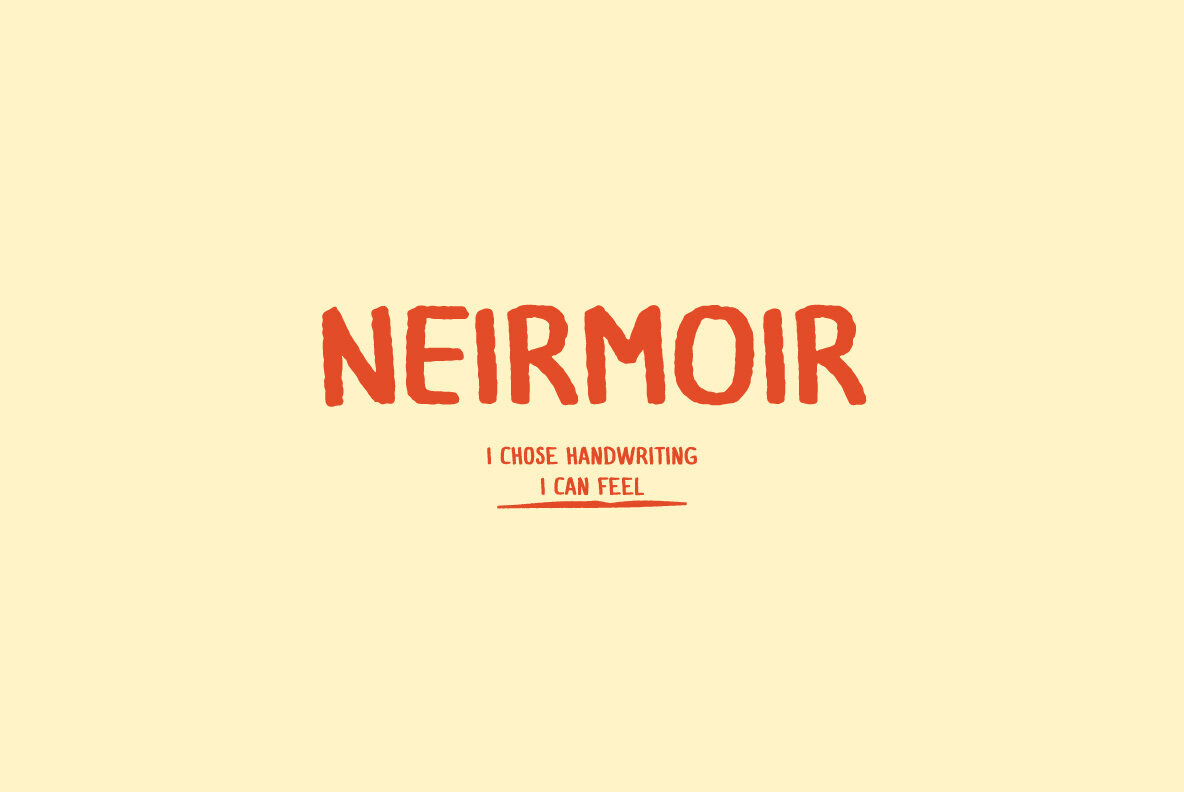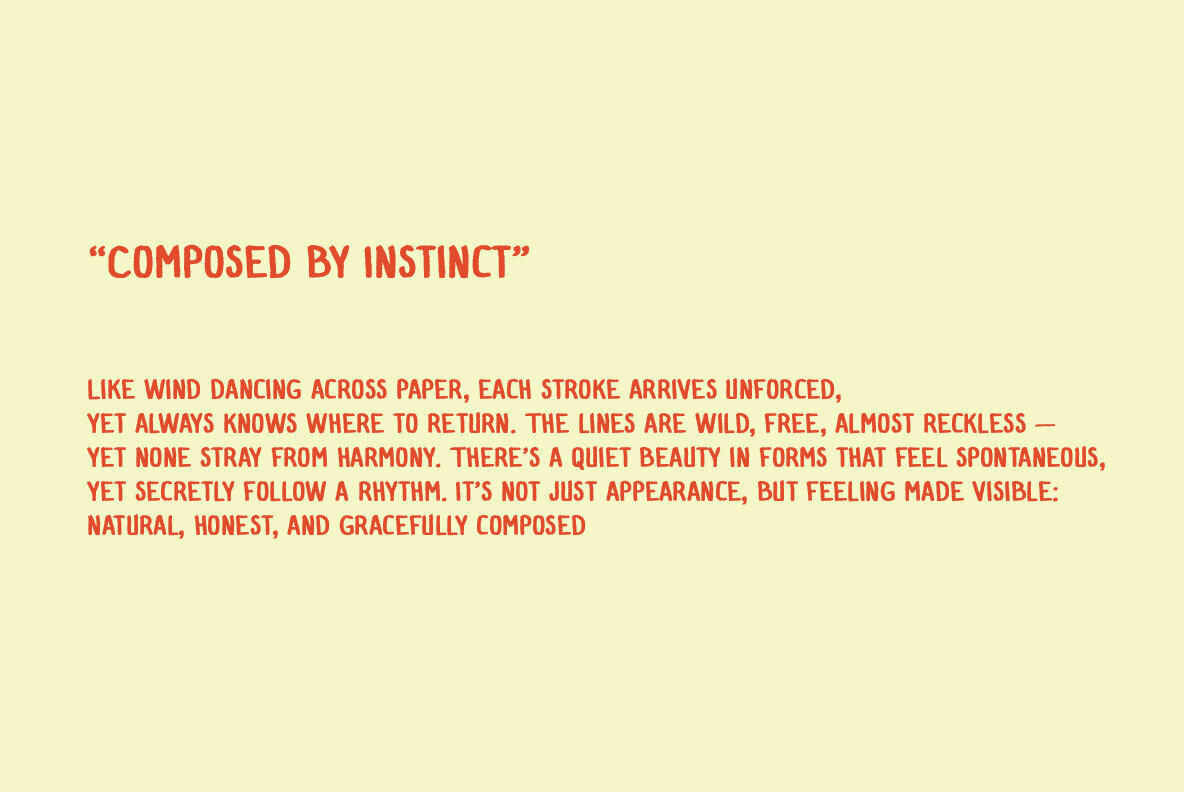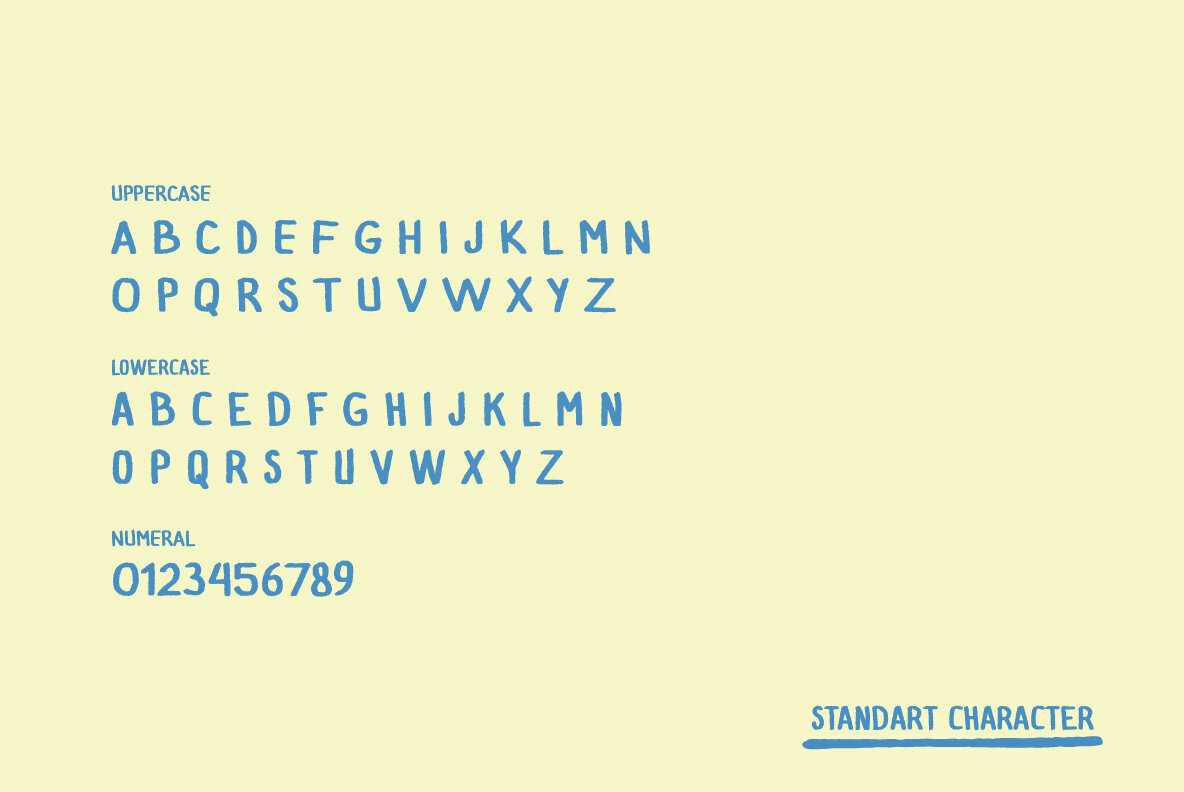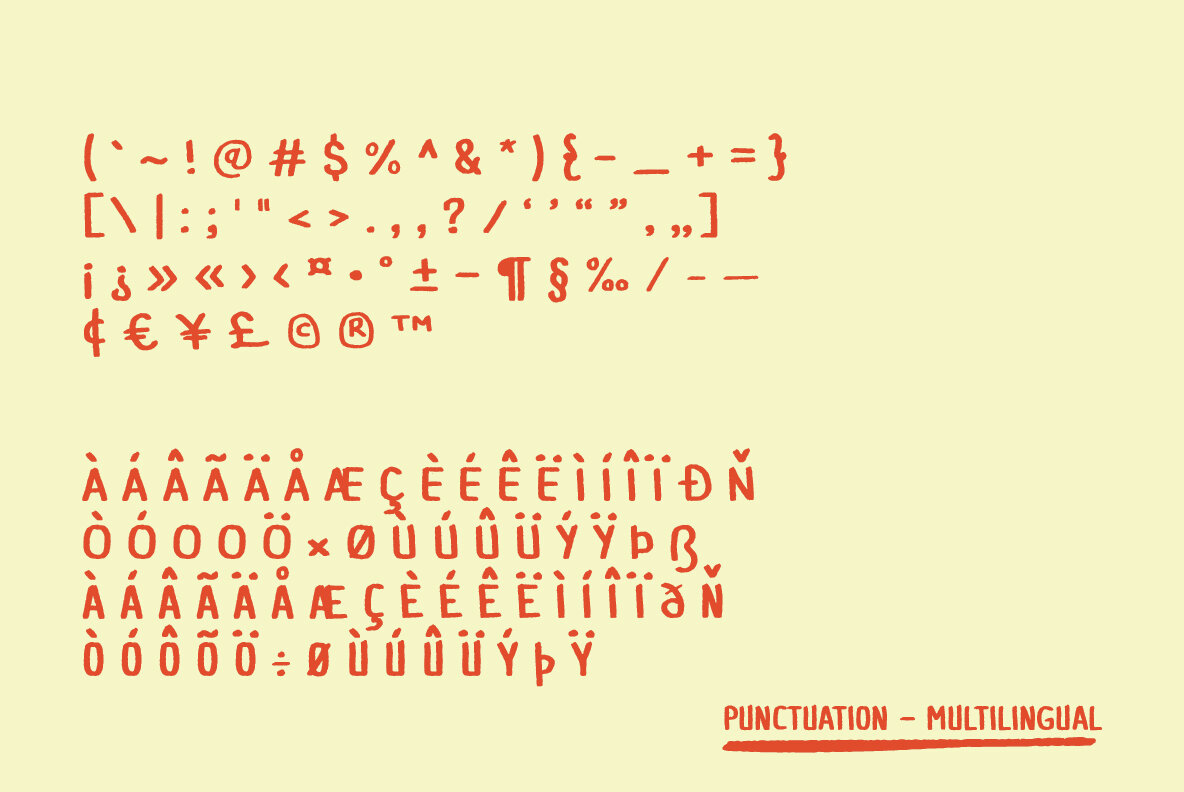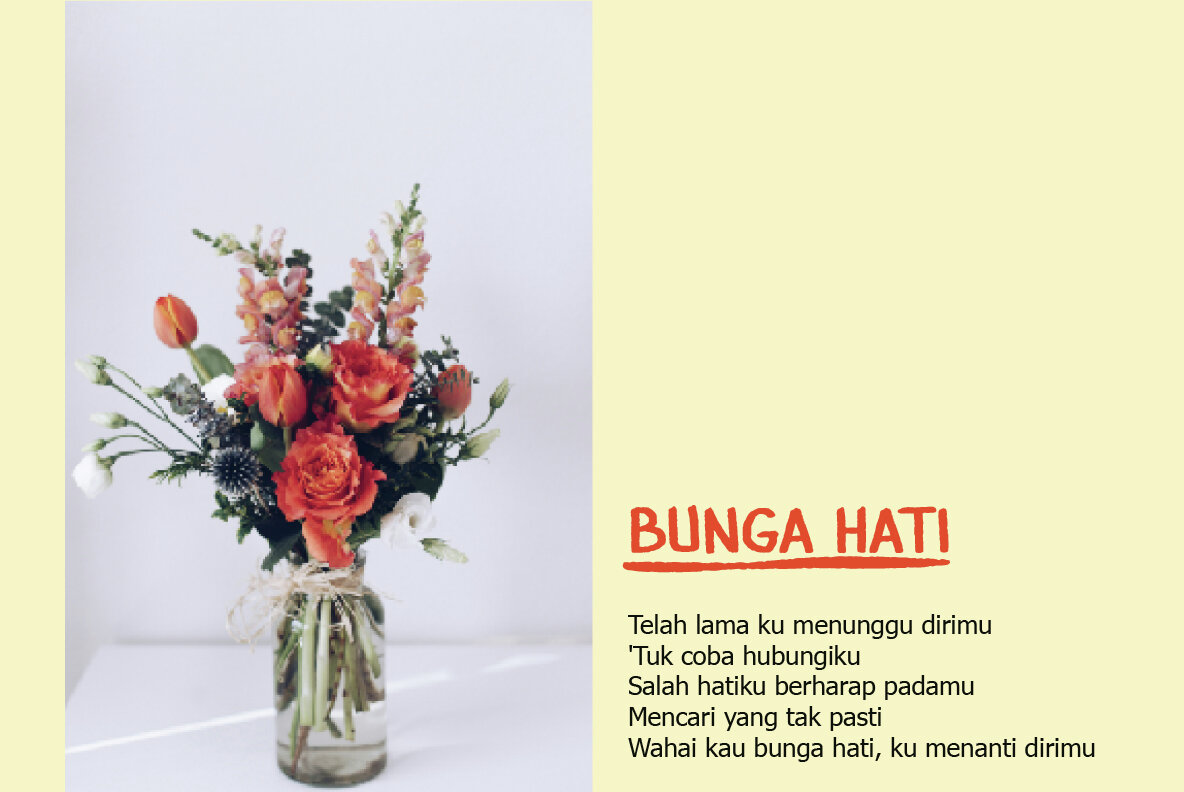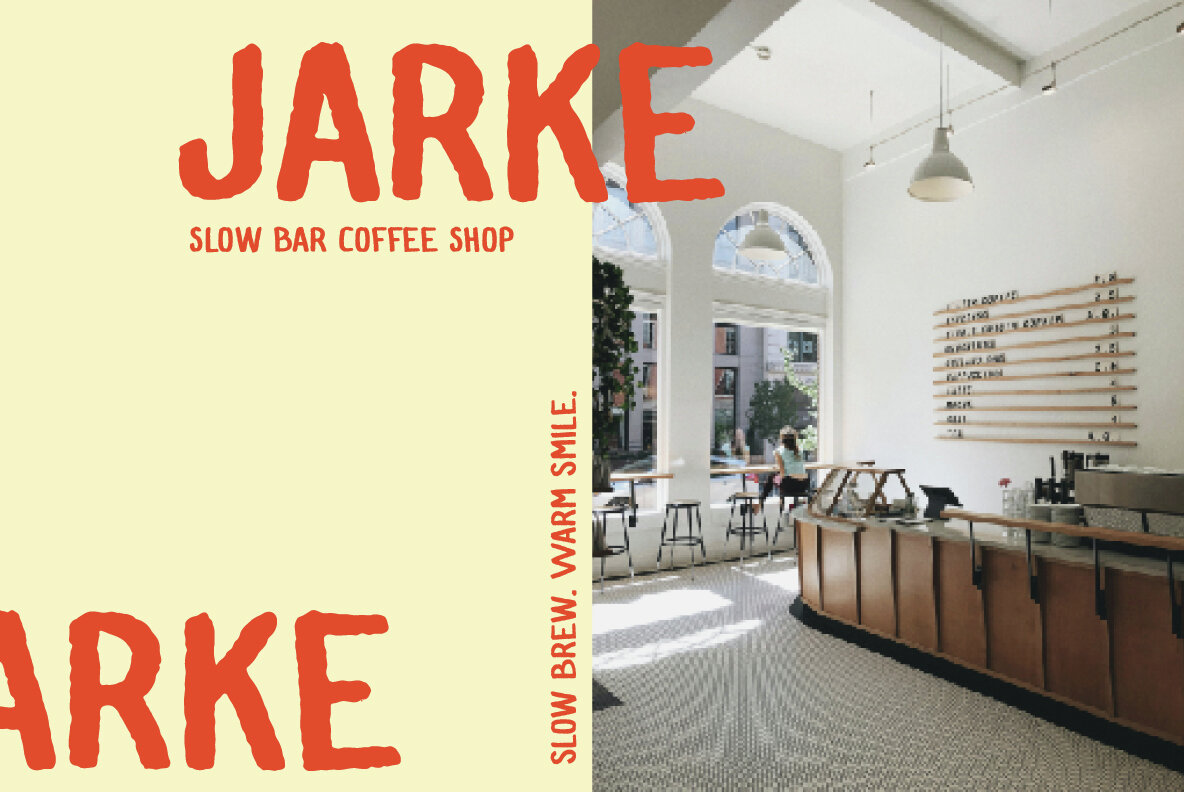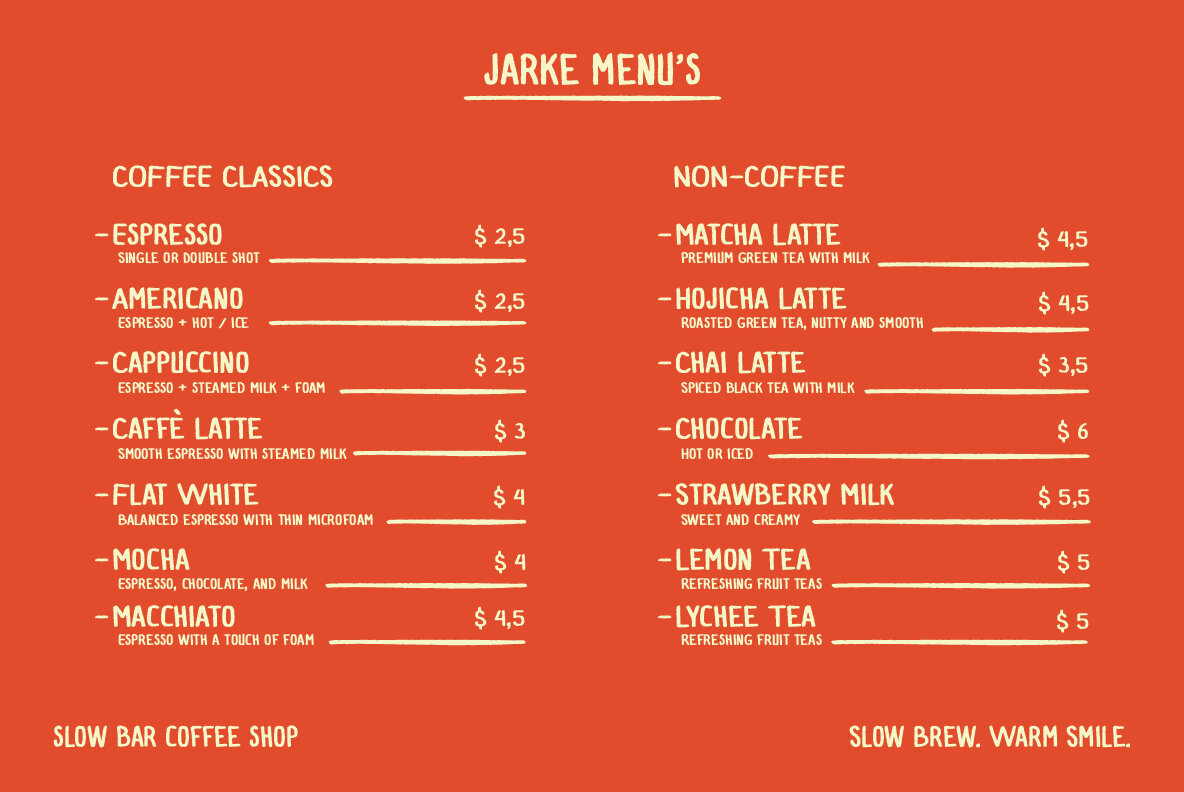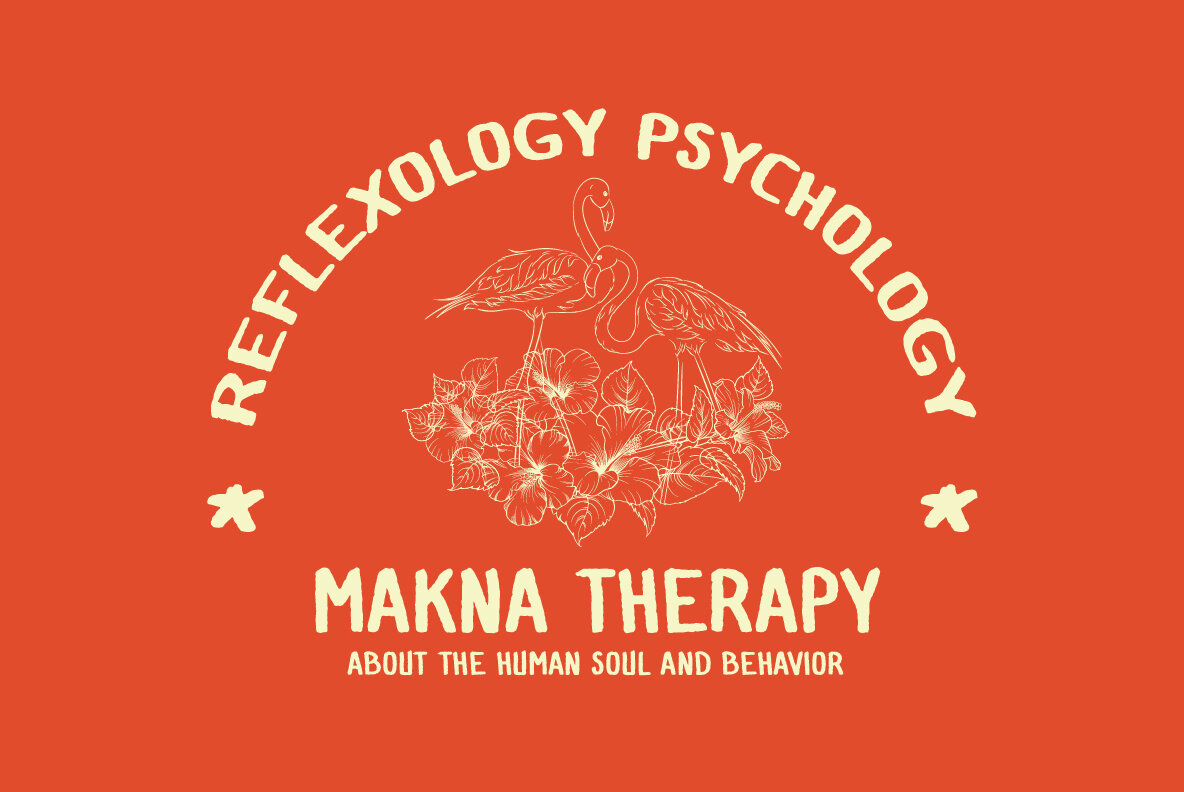
Neirmoir Font
Neirmoir
Neirmoir is a beautifully crafted handwritten font that infuses warmth and authenticity into your creative projects. Featuring smooth strokes and a balanced flow, Neirmoir provides the charm of real handwriting while ensuring excellent readability. It's the ideal choice for branding, wedding invitations, social media graphics, and packaging, as well as posters and designs that benefit from a personal, approachable aesthetic. Whether you're crafting elegant quotes, creating Instagram posts, or designing lifestyle products, Neirmoir seamlessly adds a natural touch to your work. Make your designs stand out with Neirmoir, a font that feels personal, modern, and timeless.Neirmoir Handwritten Font